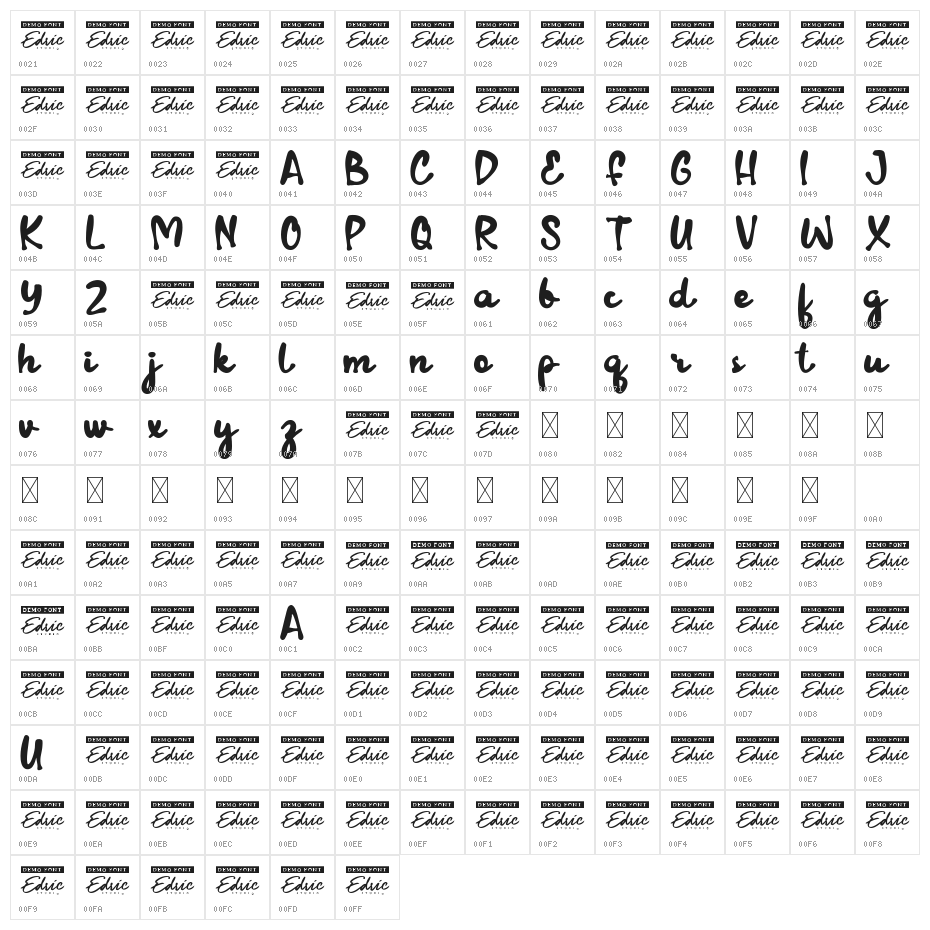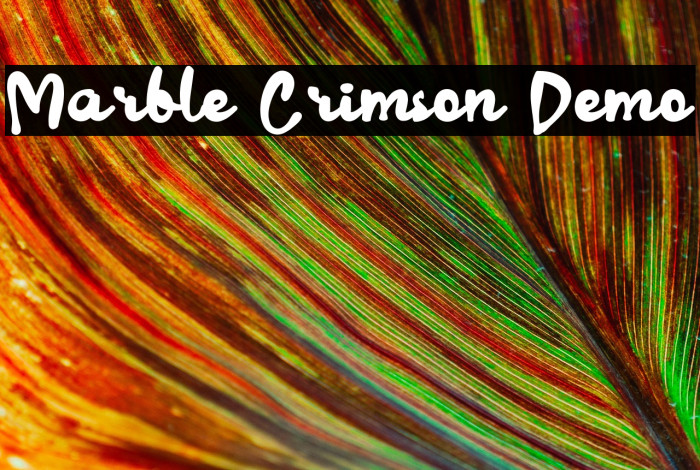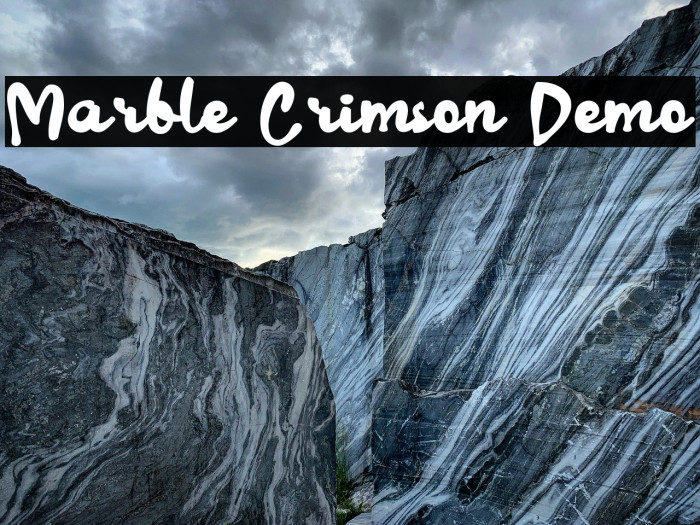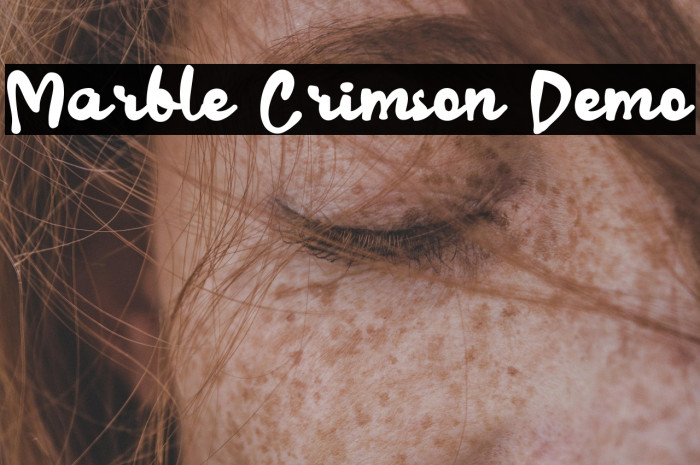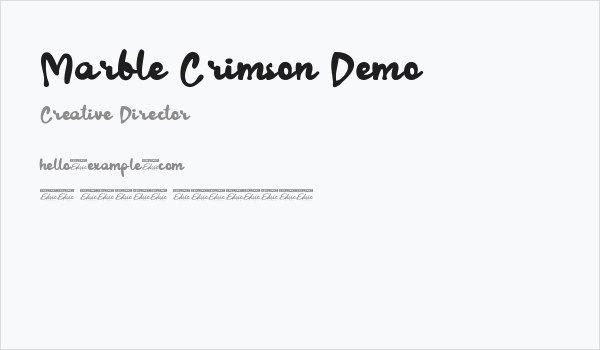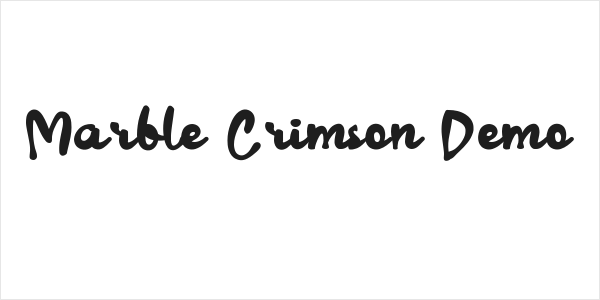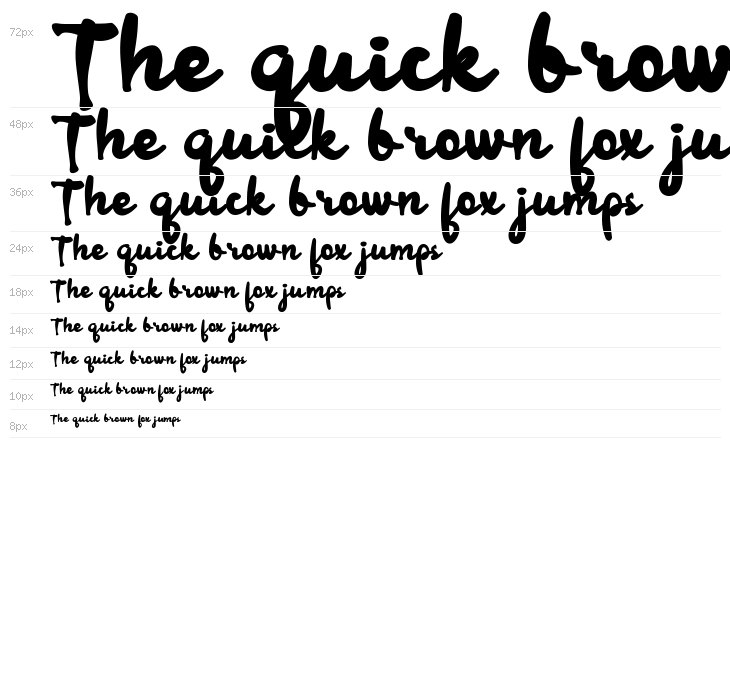
Marble Crimson Demo Font
Marble Crimson Demo Description
This font features a bold, flowing script style that exudes a sense of elegance and creativity. The characters are connected, giving it a handwritten appearance, while maintaining a consistent thickness throughout. The uppercase letters are slightly larger and more pronounced, adding a touch of sophistication. The lowercase letters are smooth and rounded, contributing to the overall fluidity of the design. The numbers and special characters are crafted to match the script's aesthetic, ensuring a cohesive look across all text elements. This font is ideal for projects that require a personal touch, such as invitations, greeting cards, or branding materials.
| Overall Style | Elegant, Creative |
| Proposed Projects | Ideal for invitations, greeting cards, branding, and creative projects. |